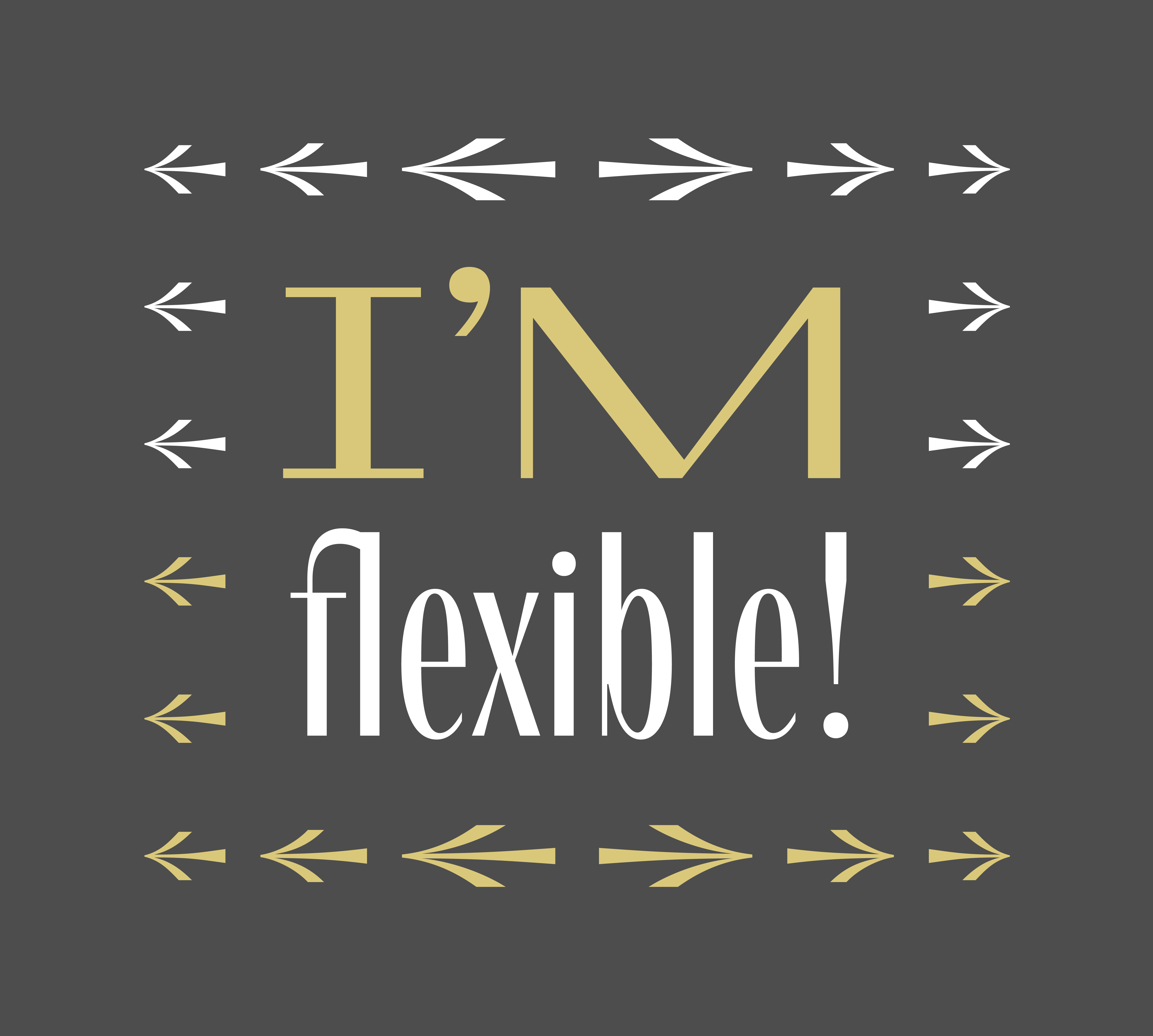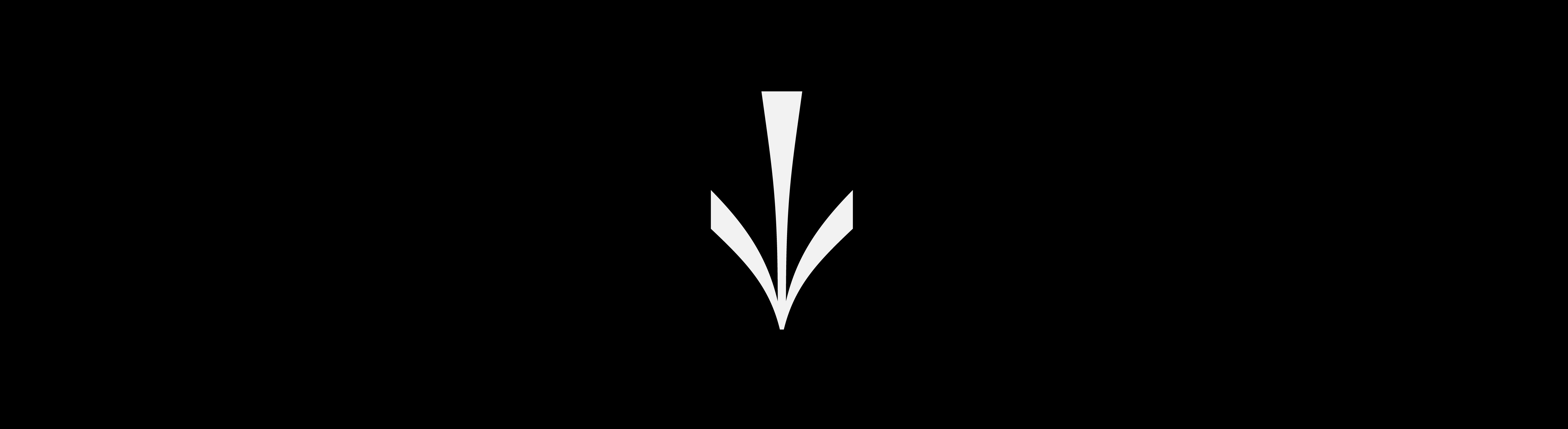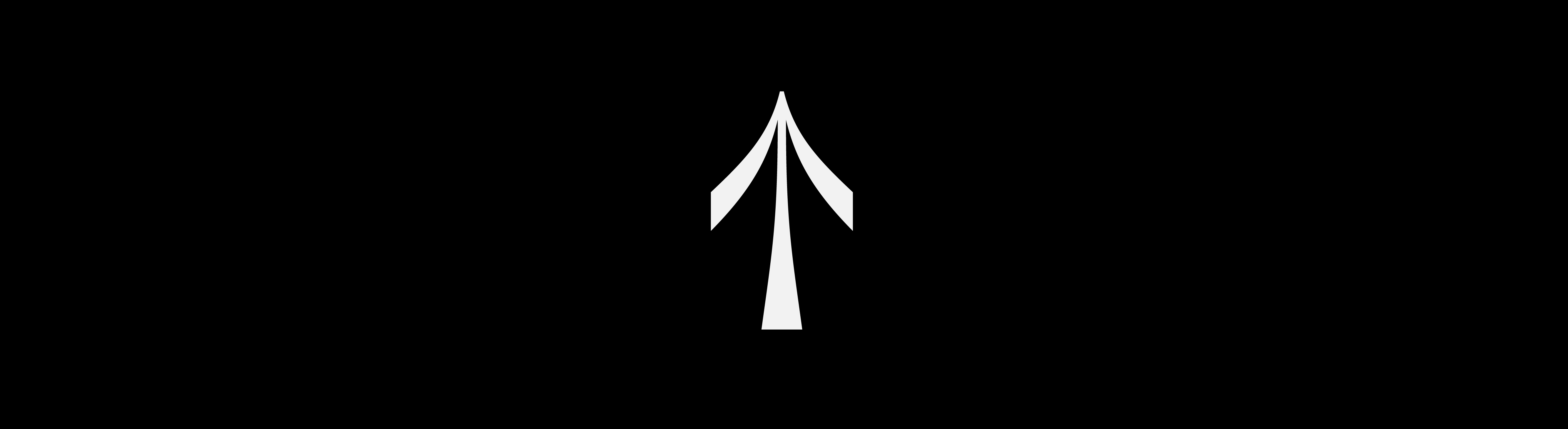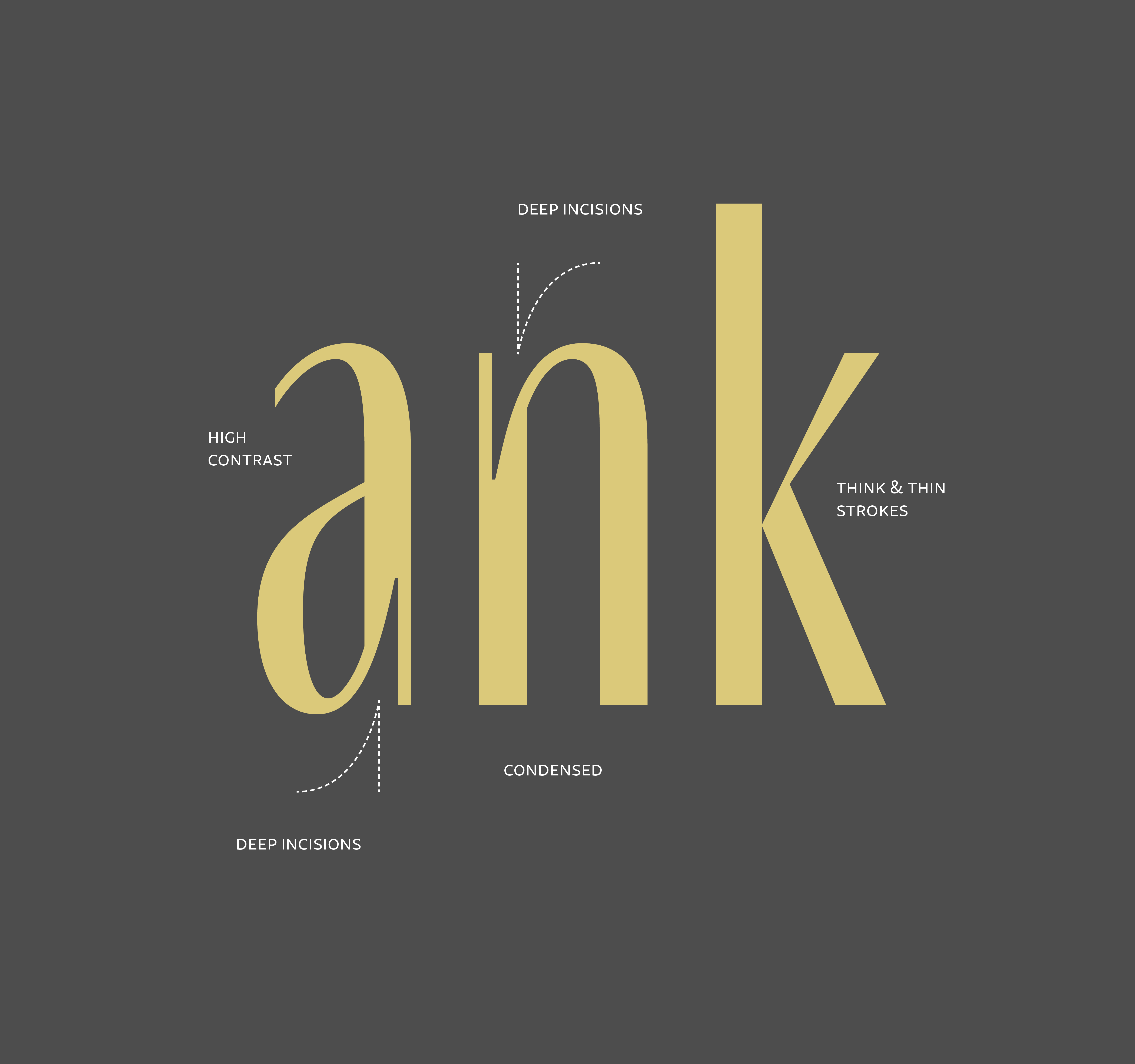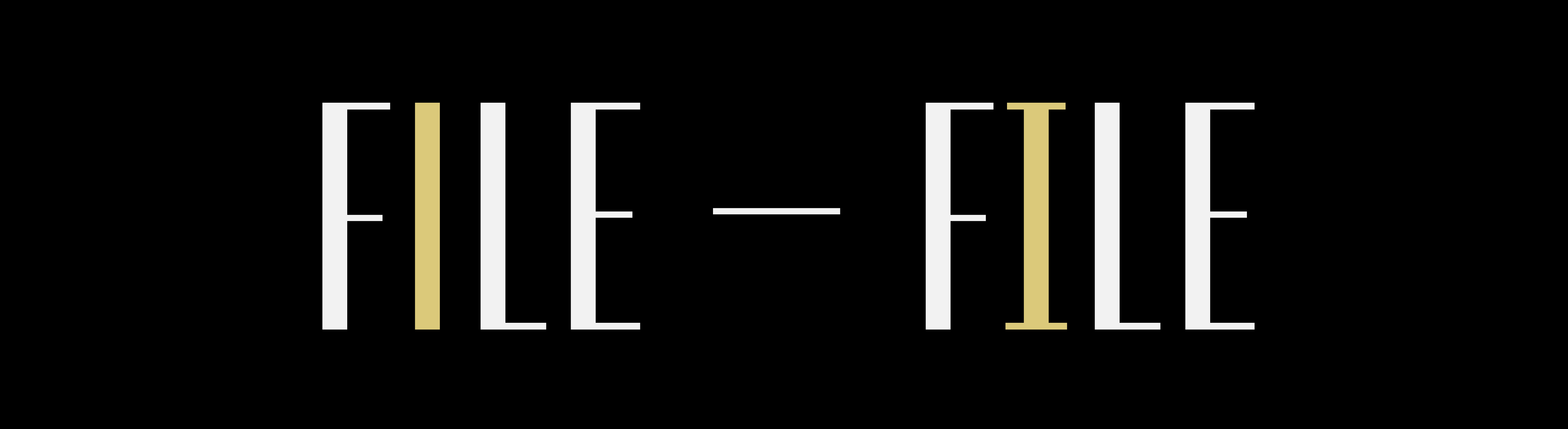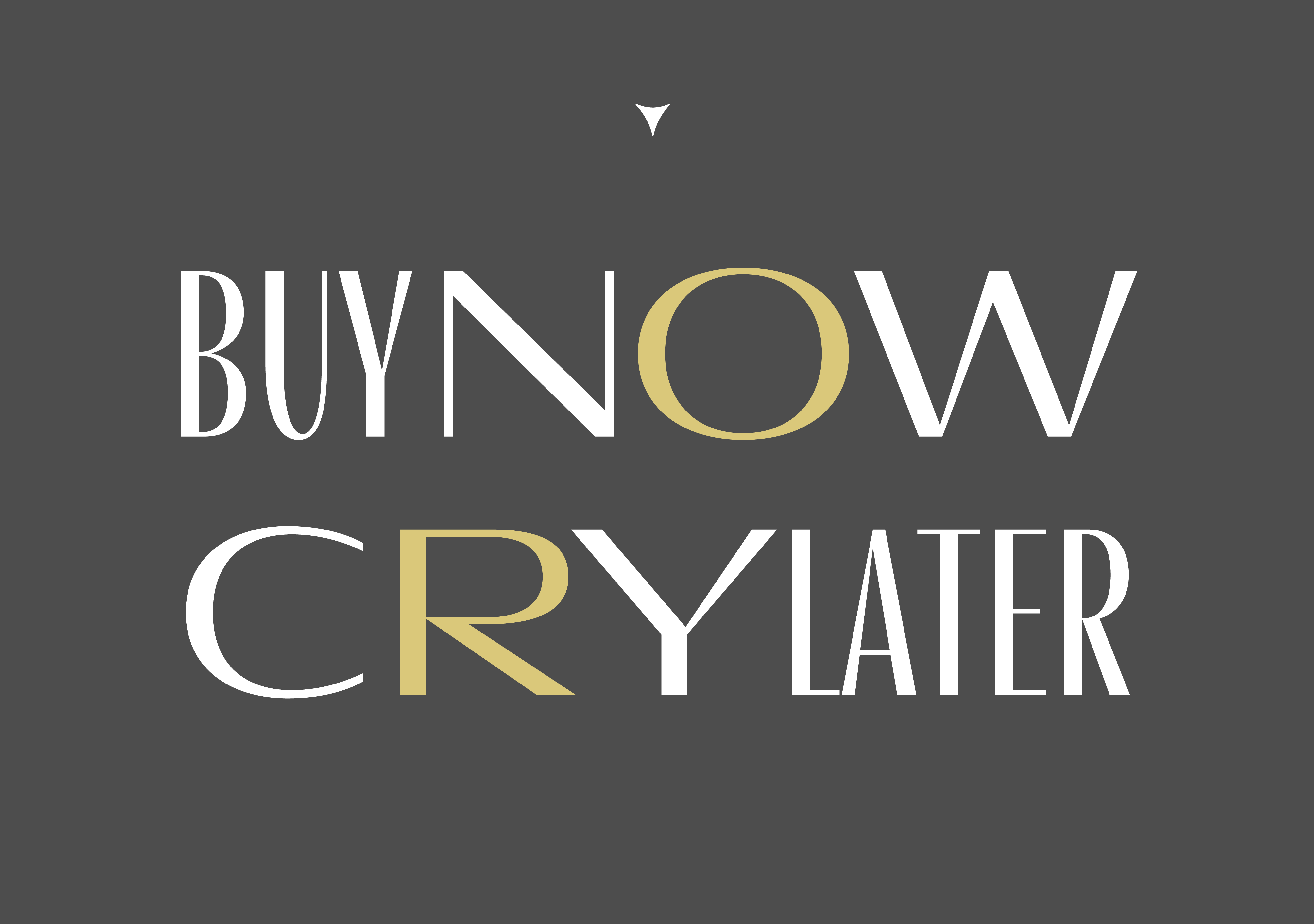
Clarette is a sans-serif type family. High contrast and eye-catching features such as deep unusual incisions guarantee real distinctiveness. The perfect balance of thick and thin strokes is giving a rhythm to the type in a playful and elegant manner. Suitable for display use in editorial, brand & corporate design.
Clarette includes Open Type Features and Stylistic Stets.